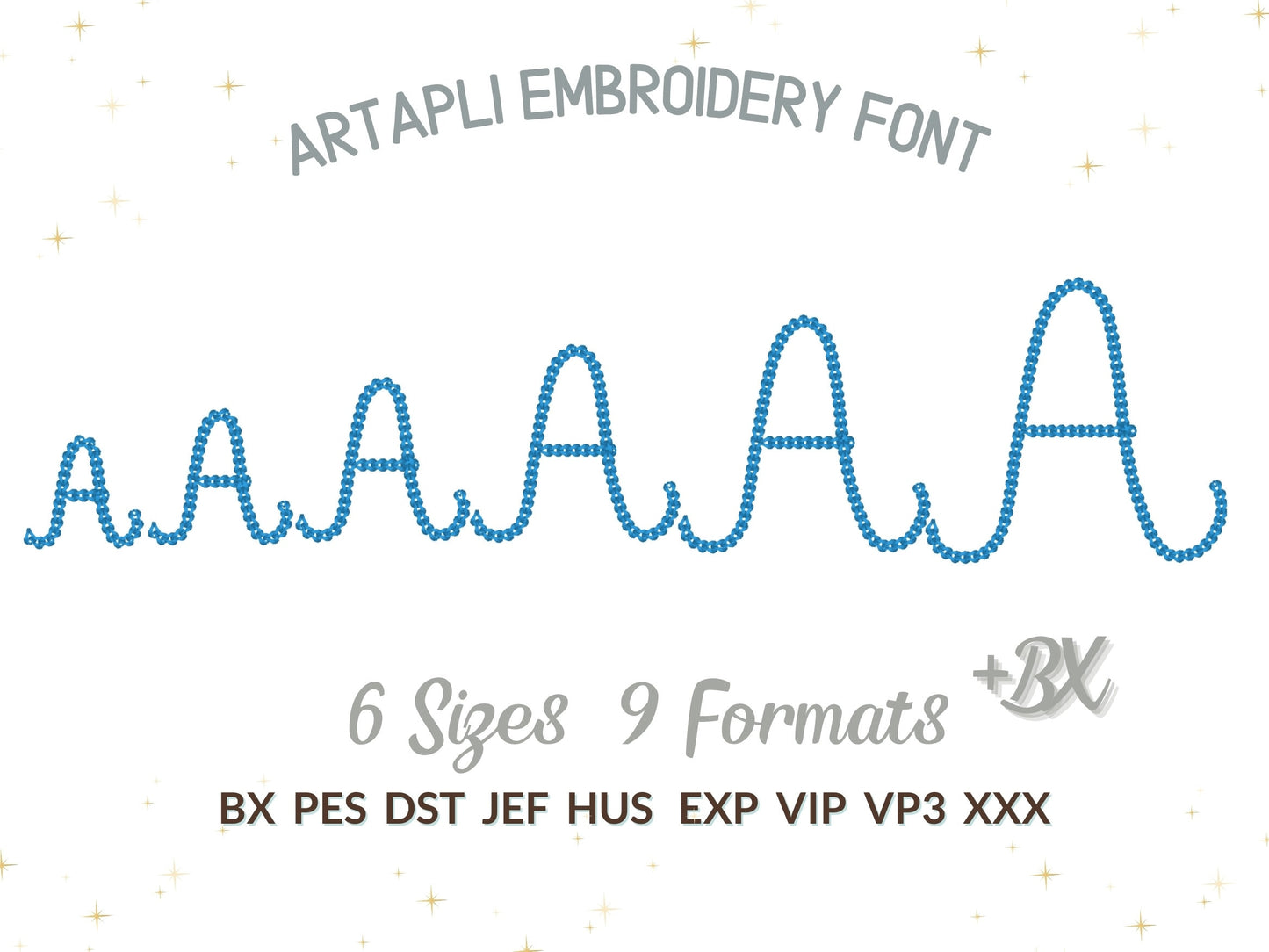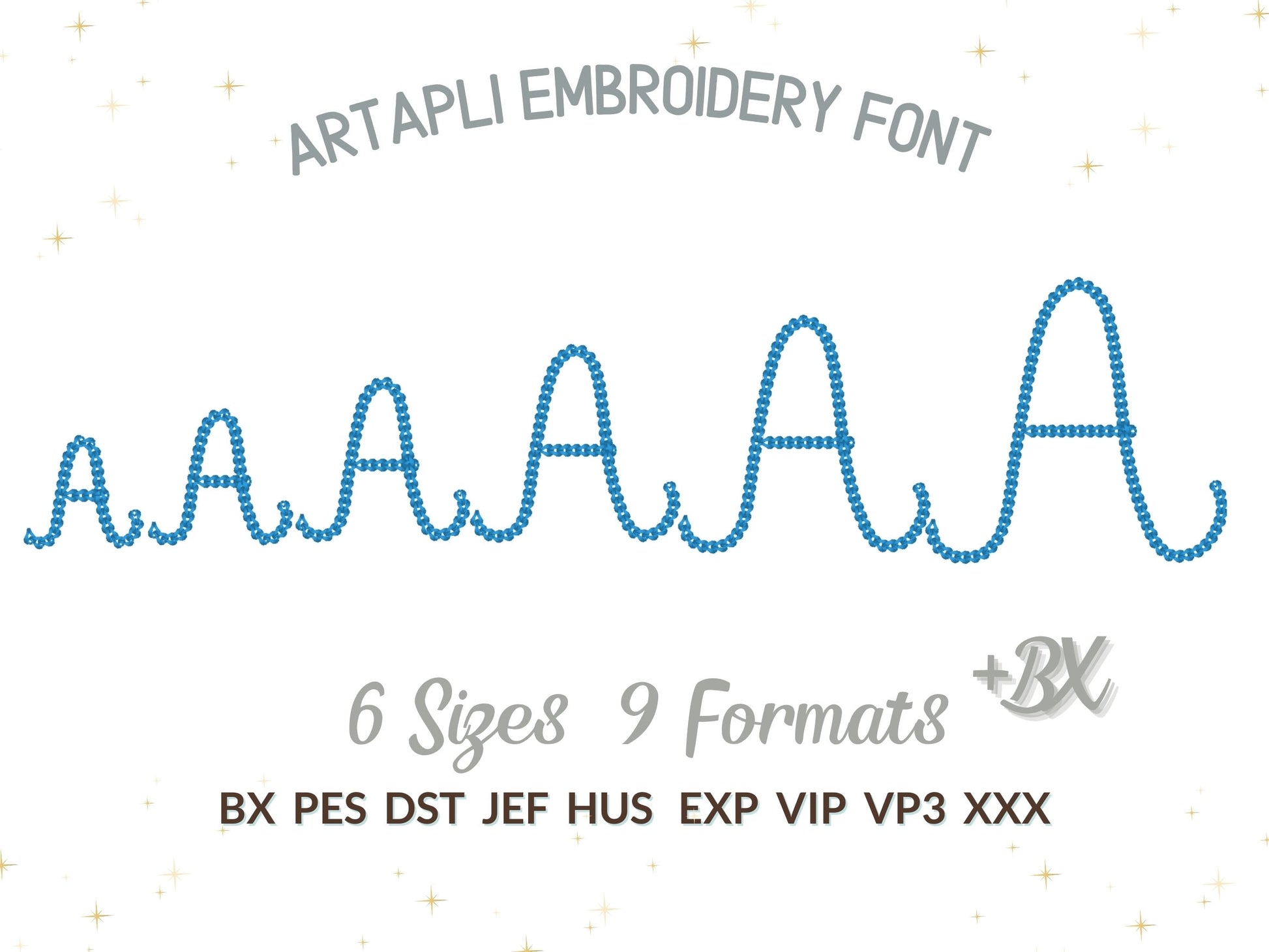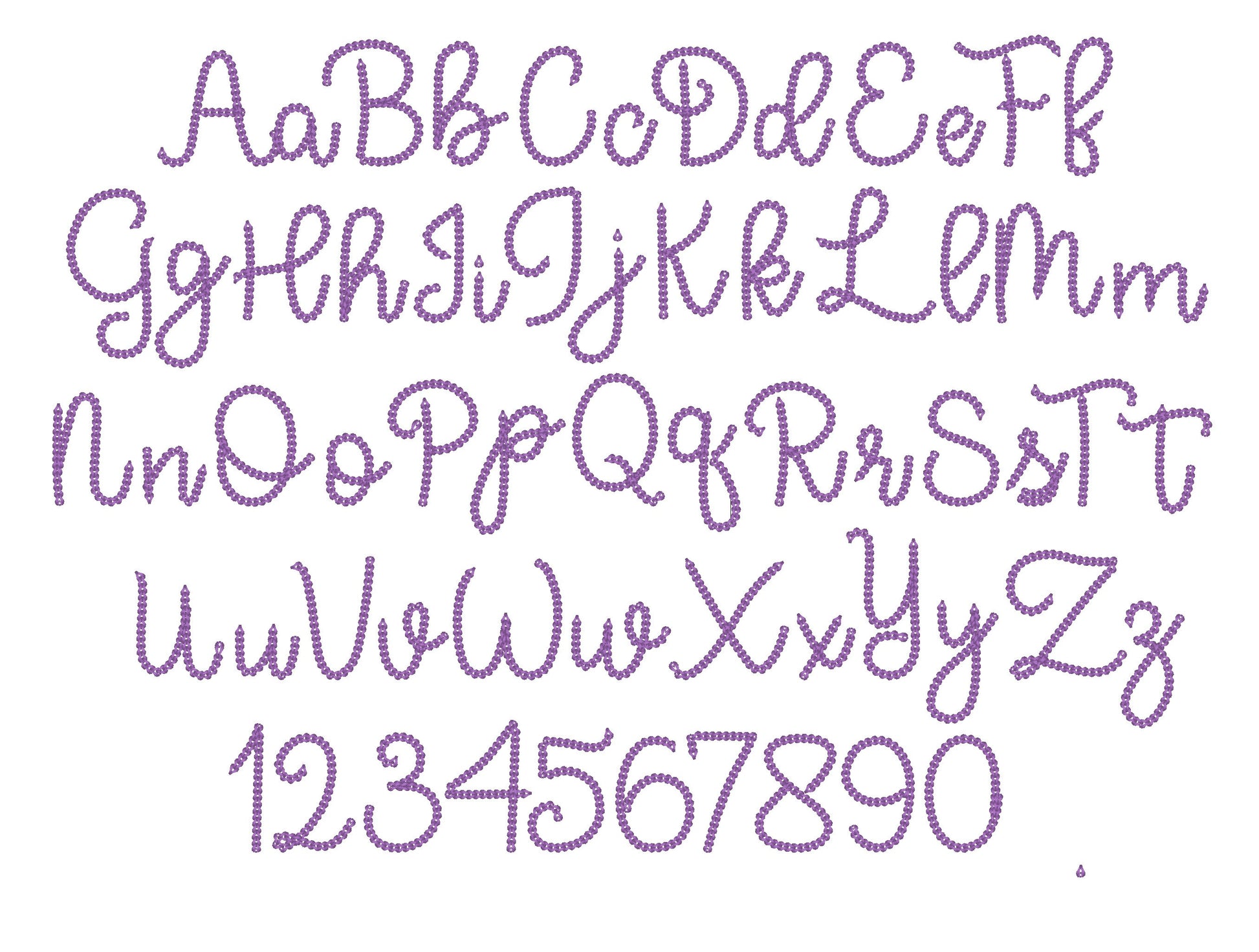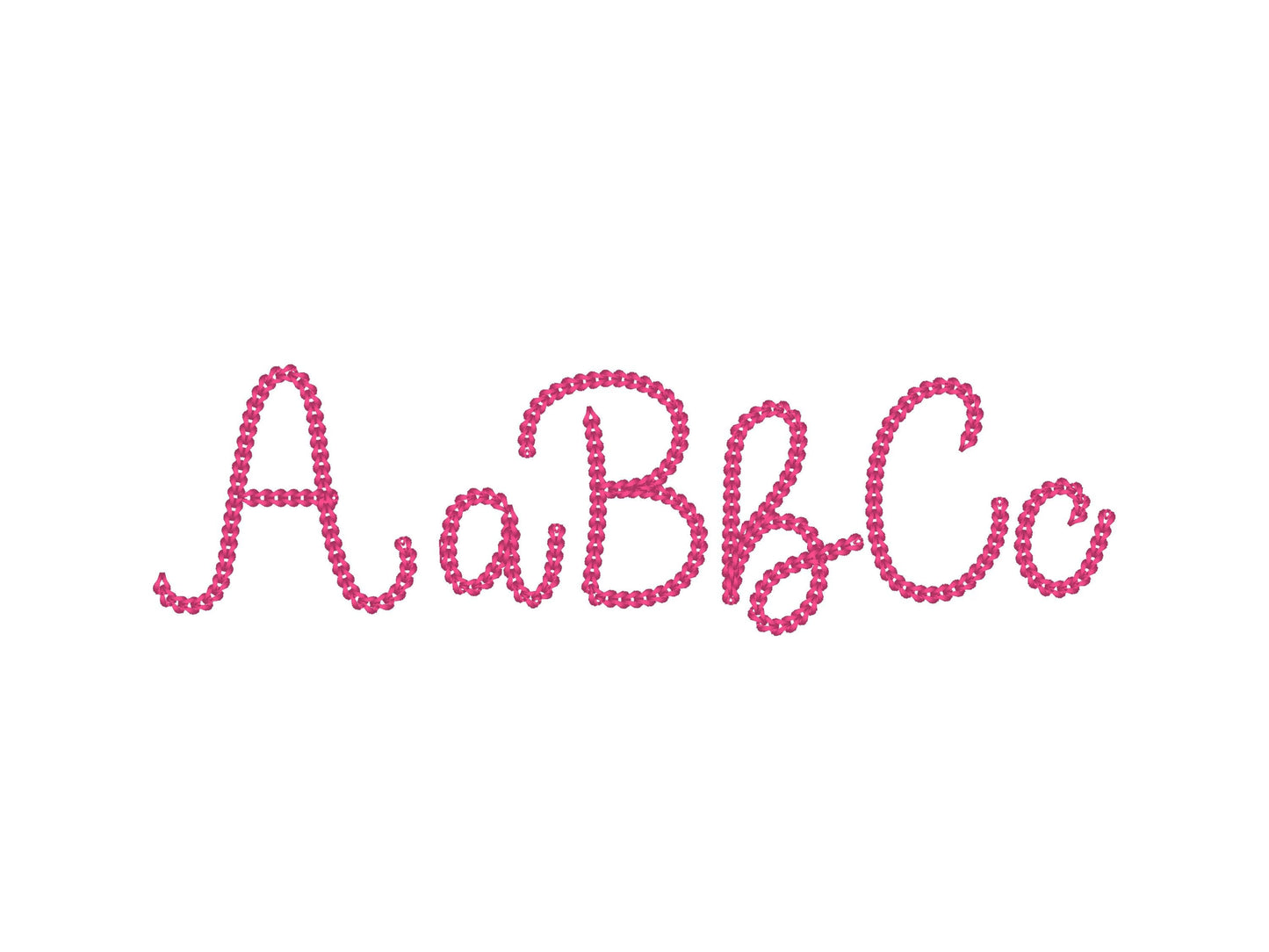
Small Bold Dense Chain Stitch Font
Uppercase and lowercase letters, numbers 0 to 9 and a period. Five sizes: 2, 2.5, 3, 3.5 and 4 inches.
- Bold dense chain stitch font
- Uppercase, lowercase, numbers 0 to 9, period
- 5 sizes, 2 to 4 in